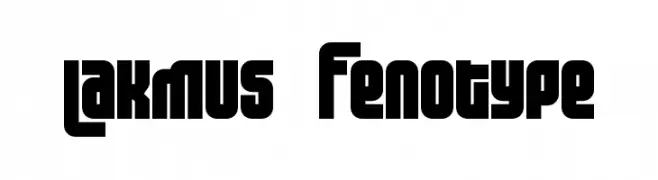
( Fonts by David Rakowski )
Eclectic and detailed pictorial dingbats with a whimsical, decorative flair.
( Fonts by www.matchfonts.com - Michel Bujardet )
An elegant and sophisticated font with graceful curves and tapered strokes.
( Fonts by Emil Bertell - www.fenotype.com )
A bold, geometric font with a modern and impactful design.
( Font by SnatchSoft )
A dingbat font with gravestone and tombstone illustrations.